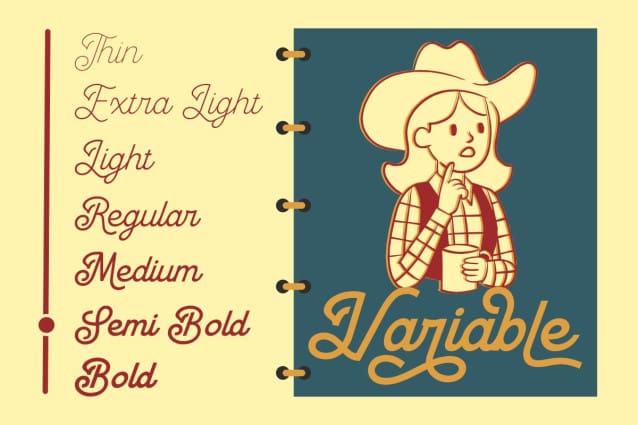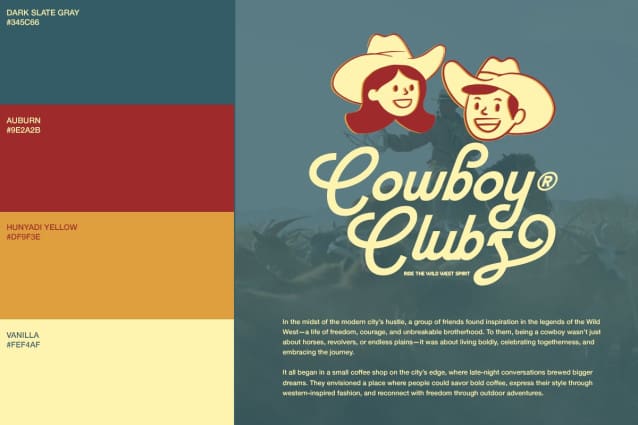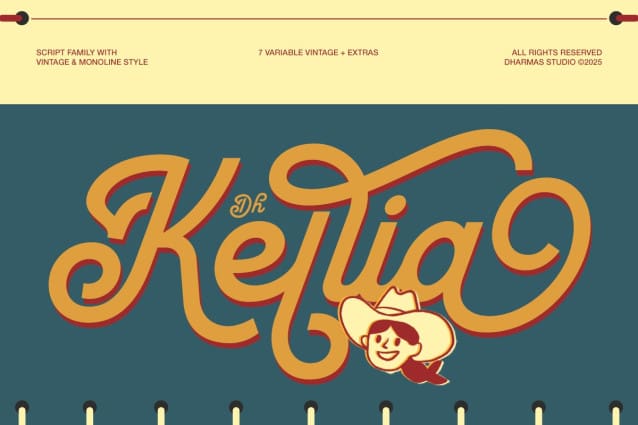
Dh Kellia Font
Dh Kellia Font is a charming vintage script font family inspired by the nostalgic spirit of the Wild West and retro hand-lettering styles. It blends playful curves with elegant strokes, creating a warm and friendly personality perfect for branding, packaging, apparel, café logos, retro posters, and creative social media designs.
This font family comes with 7 styles — Thin, Extra Light, Light, Regular, Medium, Semi Bold, and Bold — giving you the flexibility to match various visual tones and project needs. Equipped with 125+ alternates and ligatures, Dh Kellia allows endless creativity in lettering compositions, making every word look uniquely handcrafted and full of character.
Complete with uppercase, lowercase, numerals, punctuation, and multilingual support, Dh Kellia is your go-to font family for vintage-inspired designs with a touch of modern elegance.